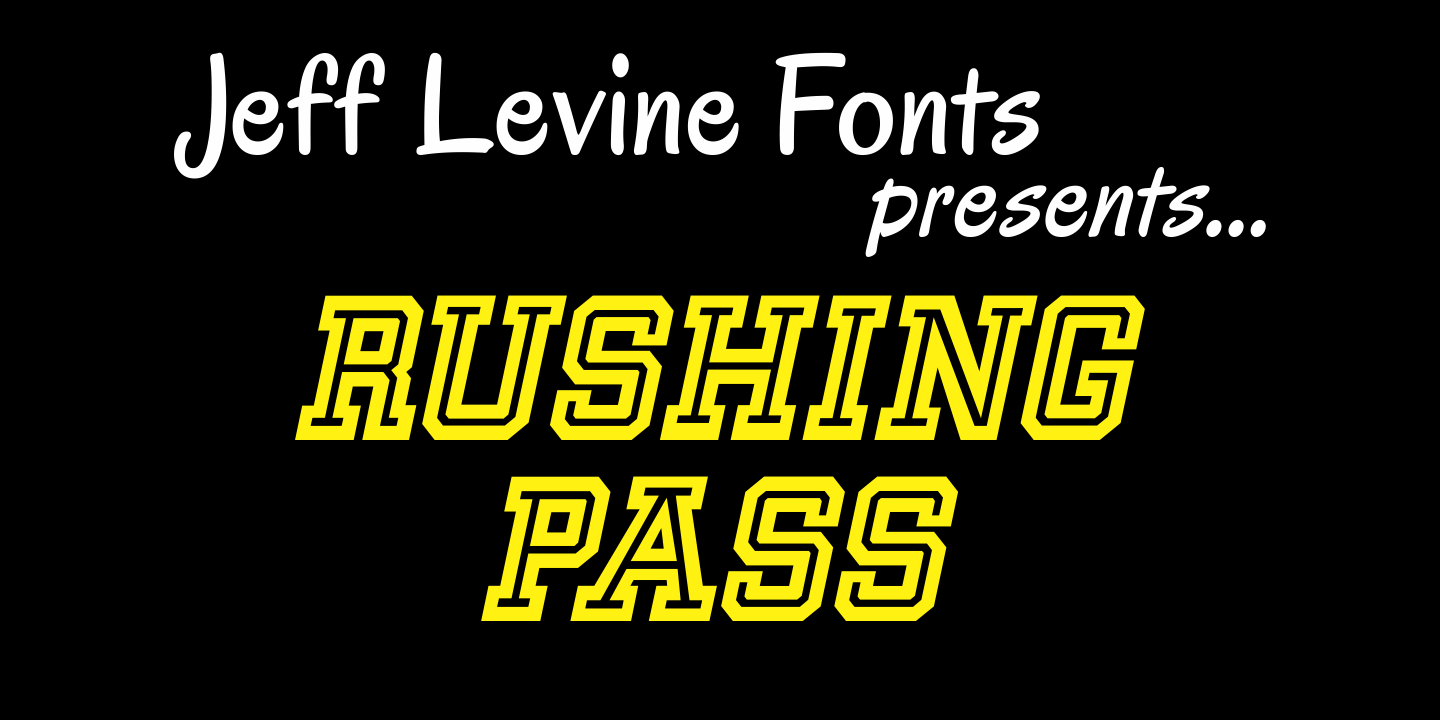
Rushing Pass
Rushing Pass JNL is the italicized companion font to Forward Passed JNL and Return Pass JNL. This package includes a bonus solid version of the font (Forward Passed Black JNL) at no extra charge.